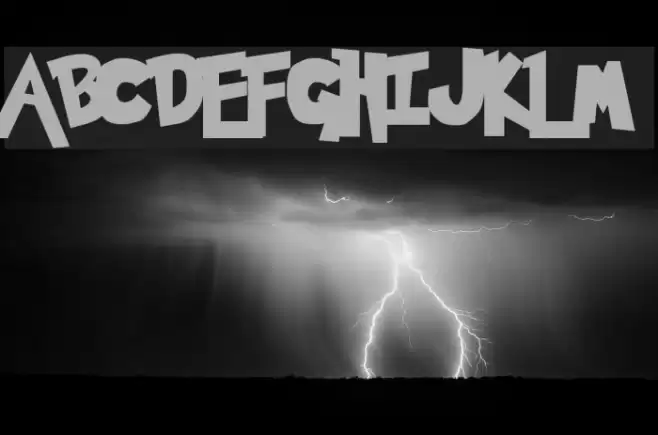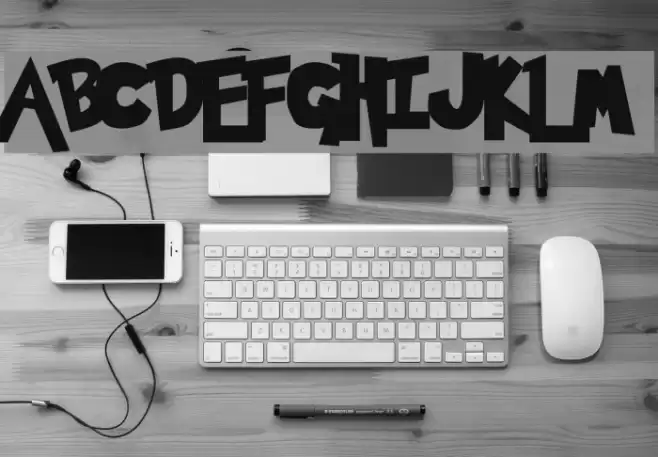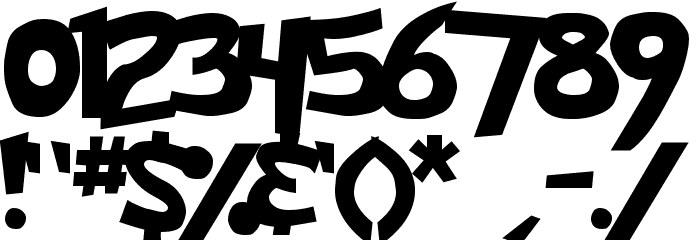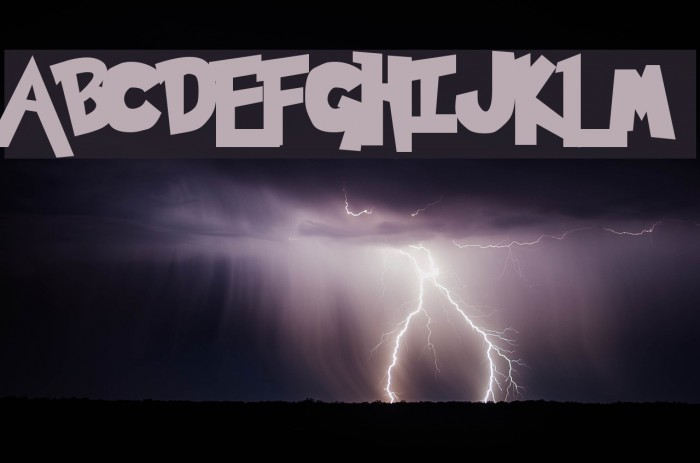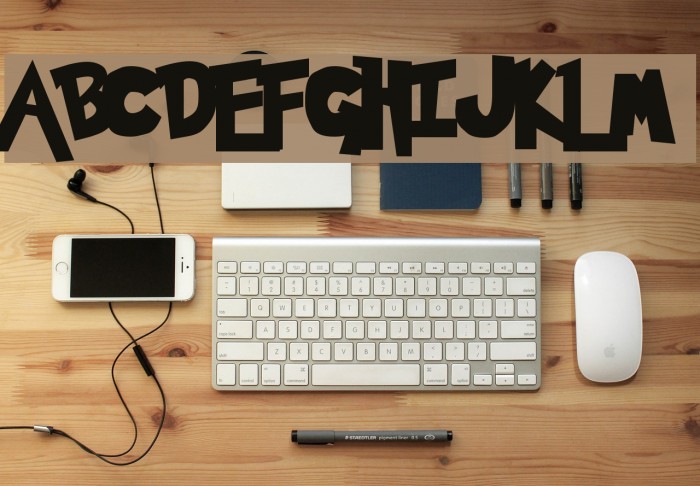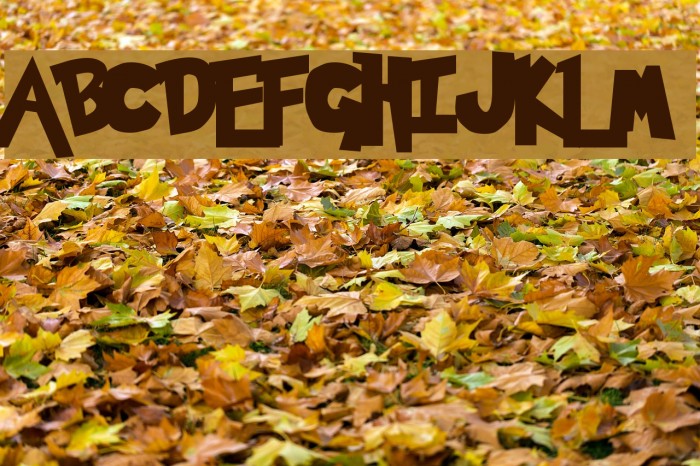
Pokemon Solid Font
Pokemon Solid Description
This font features a bold, playful style with exaggerated, thick strokes and a dynamic, energetic appearance. The characters are designed with a sense of movement and whimsy, making them stand out with their unique, cartoonish flair. The uppercase letters are particularly striking with their angular forms and varying stroke widths, while the lowercase letters maintain a consistent, rounded shape that complements the overall design. The numbers and special characters follow the same bold and lively aesthetic, ensuring a cohesive look across all elements. This font is perfect for projects that require a fun and engaging visual impact.
A bold, playful font with exaggerated strokes and a cartoonish style from Uncategorized fonts.
- Proposed Projects: Ideal for children's book covers, playful branding, video game titles, and animated movie posters.
- Overall Style: Playful, Cartoonish, Energetic